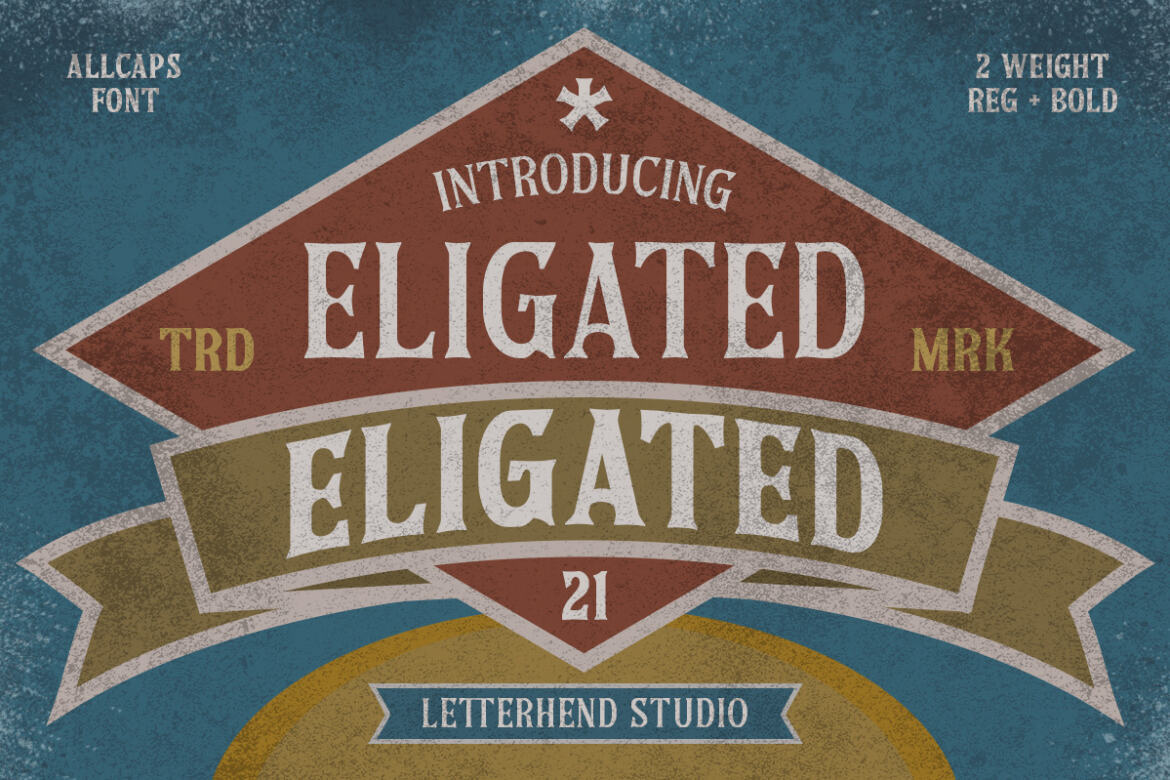
Eligated - Serif Display Font
Introducing, Eligated - a display serif typeface with nostalgic look and feel. Inspired from 60s and 70s signages, labels, and ads.